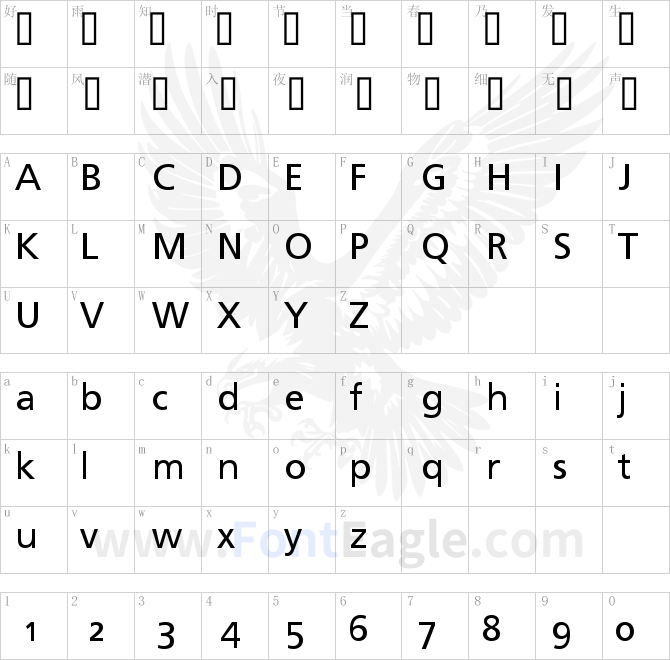
Frutiger-Linotype is a great font, widely used in graphic design, single-page menu design, poster design and other fields, and is deeply loved by designers.Frutiger-Linotype download.